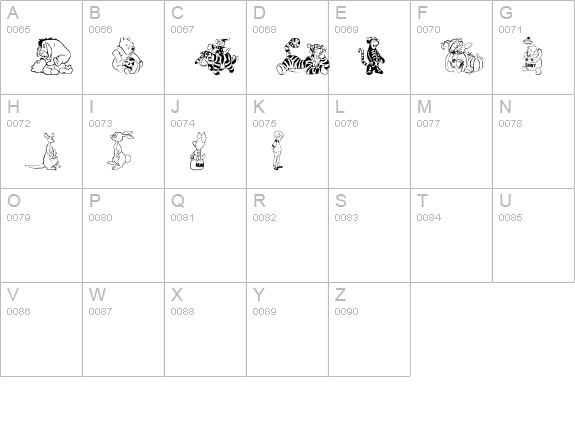
Pooh Bear Font Details
Introducing the charming and whimsical Pooh Bear font, inspired by the lovable character from the Hundred Acre Wood. This delightful font captures the essence of childhood innocence and playful imagination, making it perfect for a wide range of creative projects. With its friendly curves and warm personality, Pooh Bear font is sure to bring a touch of nostalgia and joy to your designs. Best of all, Pooh Bear font is available for free download at FontsMarket.com. So, whether you're working on a children's book, greeting cards, invitations, or any other project that could use a sprinkle of magic, be sure to add this delightful font to your collection. Embrace the whimsy and warmth of Pooh Bear font today and let your creativity soar!